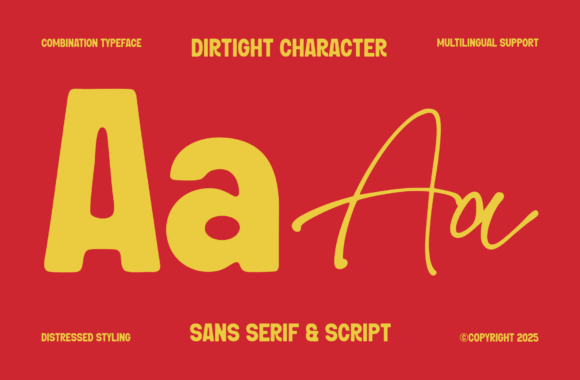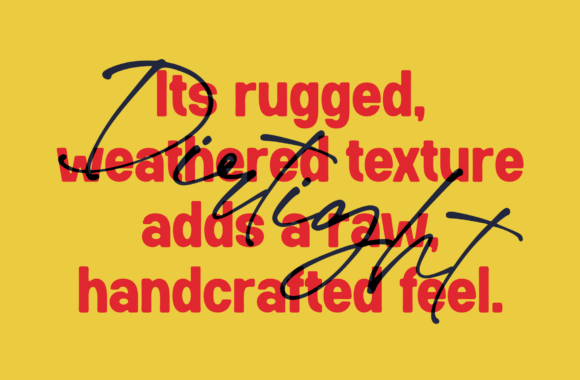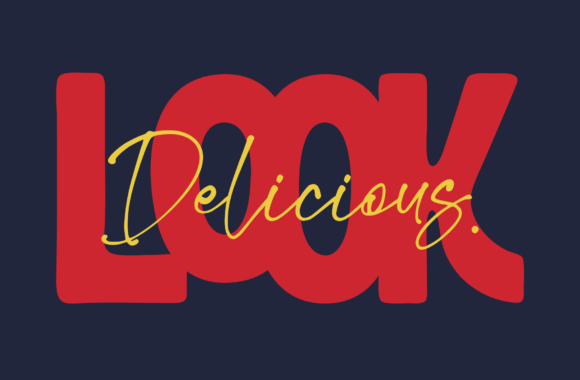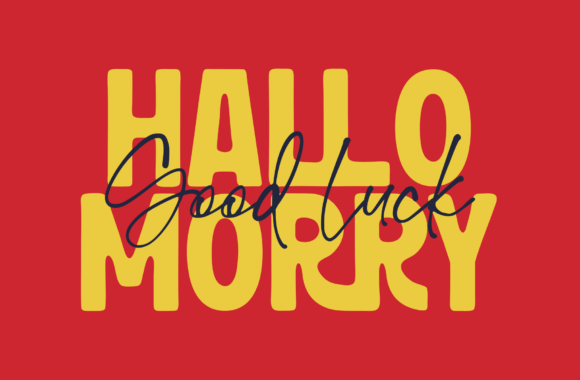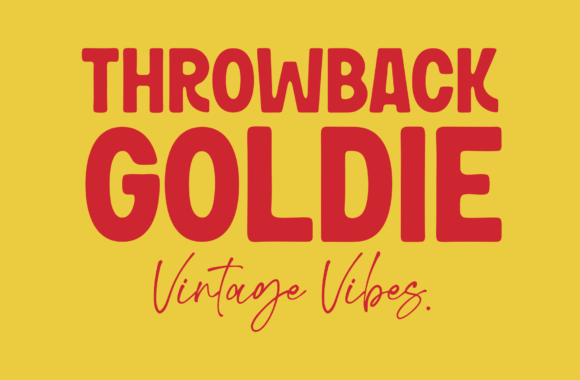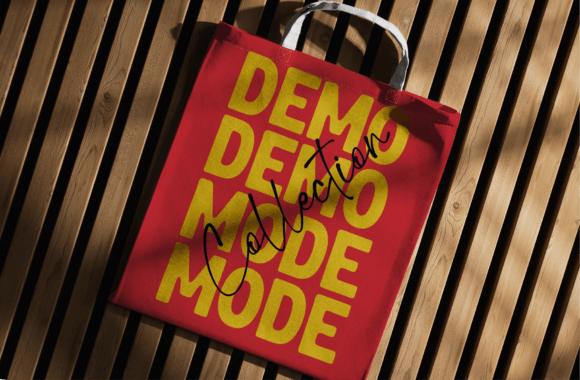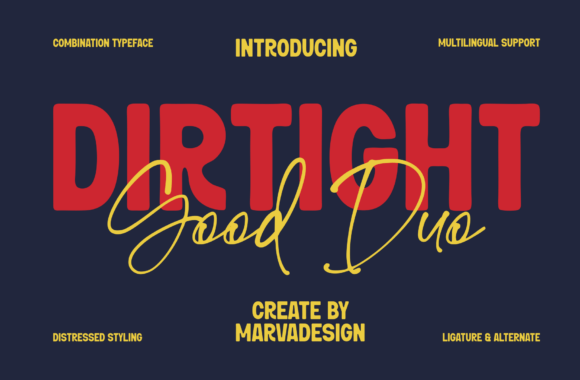
Introducing Dirtight Font: Unleash the Power of Retro Distressed Aesthetics
In the world of typography, fonts play a crucial role in bringing a design to life. For designers and crafters looking to add a touch of nostalgia and authenticity to their work, Dirtight Font is an excellent choice. This versatile font features two distinct styles: Sans Serif and Script, embodying a retro distressed aesthetic that’s perfect for creating unique and eye-catching designs.
The Essence of Dirtight Font
True to its name, Dirtight Font has a gritty, weathered appearance that immediately captures attention. The Sans Serif style boasts a rugged, raw look, while the Script style adds a touch of elegance with its fluid, handwritten-like curves. Both styles work harmoniously to deliver a vintage, handcrafted feel that’s perfect for designs that require a slightly “dirty” edge.
Key Features of Dirtight Font
- Two Distinct Styles: Sans Serif and Script, allowing designers to experiment with different looks and feels.
- Retro Distressed Aesthetic: Dirtight Font embodies a weathered, vintage look that’s reminiscent of handwritten lettering from the past.
- Versatility: Perfect for a wide range of design projects, from branding and advertising to packaging and crafting.
- Gritty, Raw Appearance: Adds a unique, authentic touch to designs, setting them apart from more polished and refined typography.
Design Applications for Dirtight Font
Dirtight Font’s versatility makes it an excellent choice for various design applications. Here are a few ideas to get you started:
- Branding and Logo Design: Use Dirtight Font to create a memorable and distinctive brand identity that stands out from the crowd.
- Advertising and Marketing Materials: Add a touch of nostalgia and authenticity to your ads, flyers, and brochures with Dirtight Font’s retro distressed aesthetic.
- Packaging Design: Give your product packaging a unique, handcrafted look that appeals to customers looking for artisanal products.
- Crafting and DIY Projects: Use Dirtight Font to add a personal touch to your crafting and DIY projects, such as handmade cards, invitations, and signs.
Tips for Using Dirtight Font Effectively
To get the most out of Dirtight Font, here are some tips to keep in mind:
- Mix and Match Styles: Experiment with combining the Sans Serif and Script styles to create visually appealing contrasts.
- Play with Colors: Dirtight Font looks great in bold, vibrant colors, but also try using it in monochromatic schemes for a more subtle look.
- Add Texture and Patterns: Enhance the distressed aesthetic of Dirtight Font by incorporating textures and patterns that complement its weathered look.
Dirtight Font is an exceptional choice for designers and crafters seeking to add a touch of nostalgia and authenticity to their work. With its retro distressed aesthetic, versatile styles, and gritty, raw appearance, Dirtight Font is perfect for creating unique and eye-catching designs. Whether you’re working on branding, advertising, packaging, or crafting projects, Dirtight Font is sure to bring a distinctive edge to your typography.